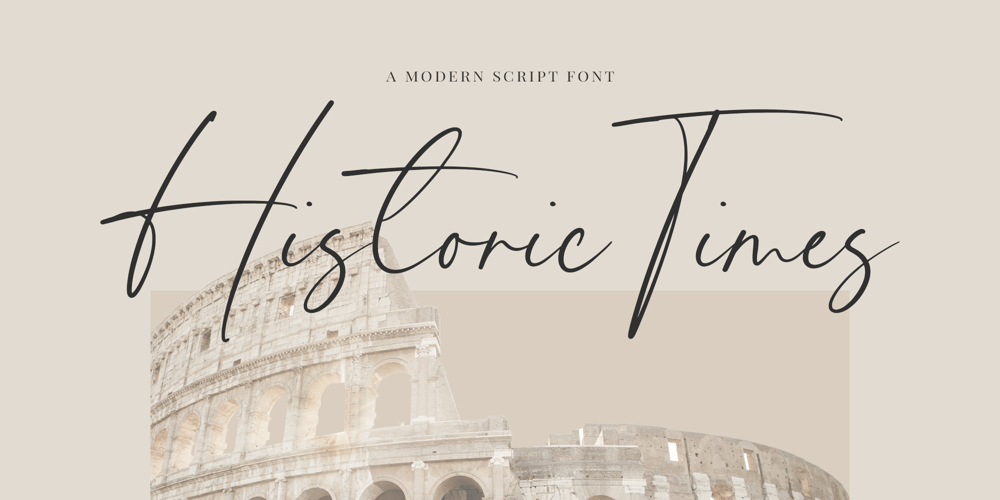
Historic Times Font Family was designed by Wara Sigit Tri Pamungkas and published by Timurtype. Historic Times contains 1 styles and family package options. Introducing by Timur typeProudly Present, Rustic HomesHistoric Times A Handwritten FontHistoric Times is perfect for product packaging, branding project, megazine, social media, wedding, or just used to express words above the background.Historic Times also multilingual support.Enjoy the font.Thank you!